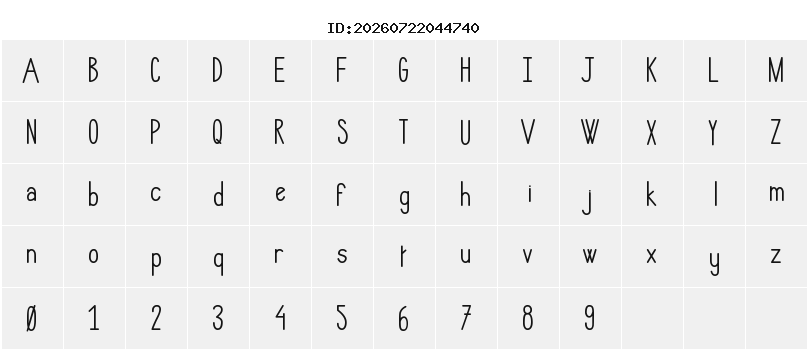
hlmt-rounded Preview
• Font Name: hlmt-rounded
• Full Font Name: hlmt-rounded
• Version: Version 1.00 December 29, 2008, initial release
About hlmt-rounded.ttf
hlmt-rounded.ttf is a modern, elegant sans-serif font designed for ultimate readability and visual harmony. Perfect for branding, headlines, web design, and print materials.